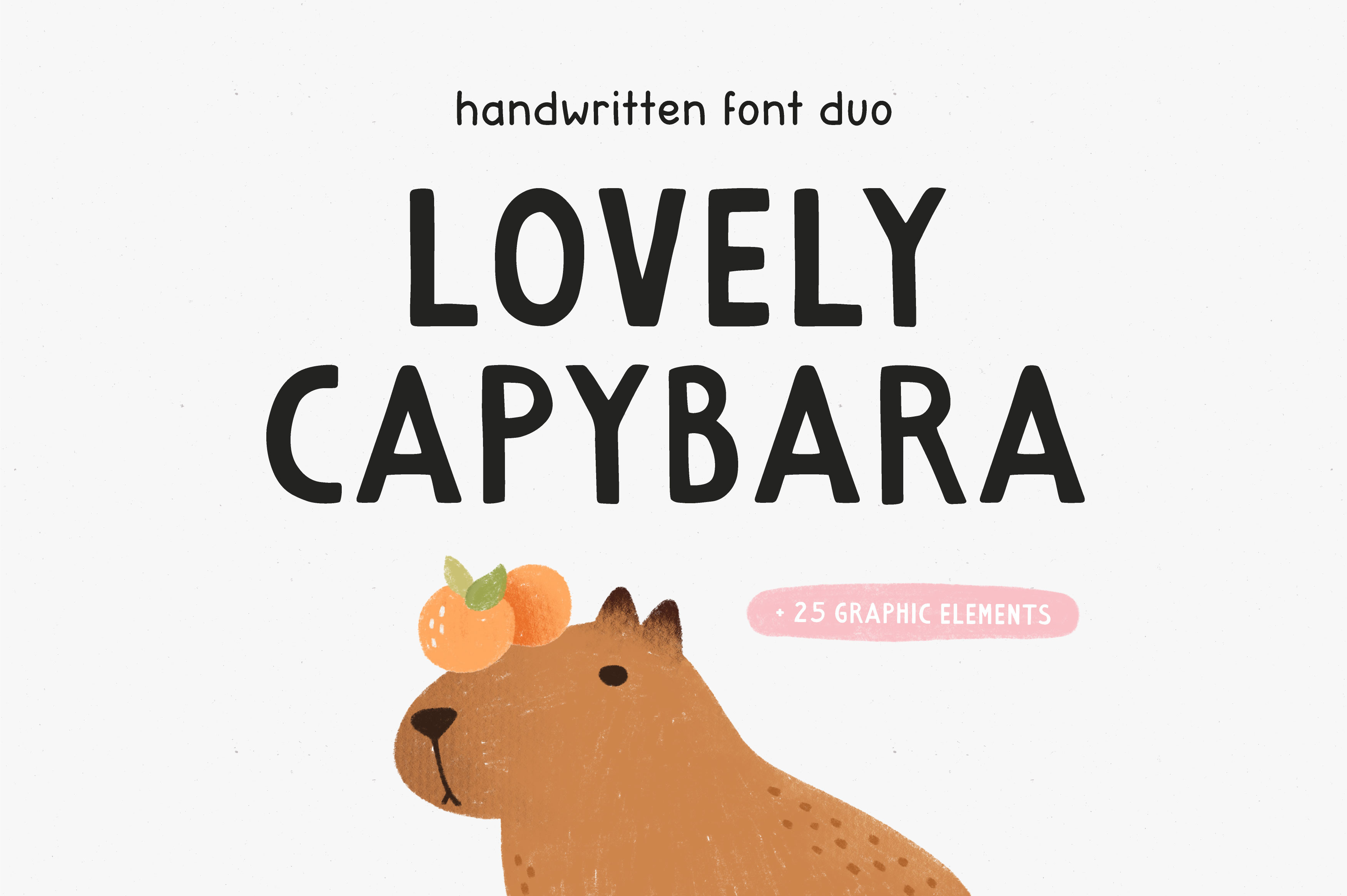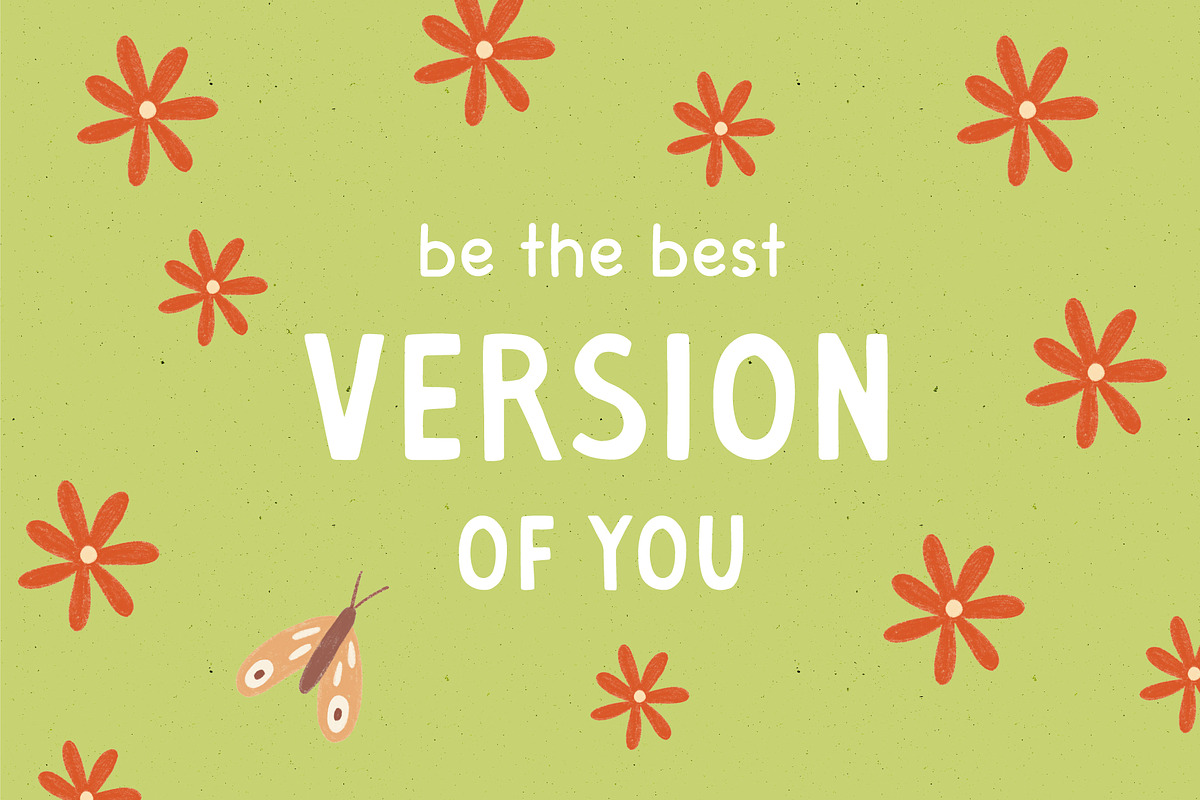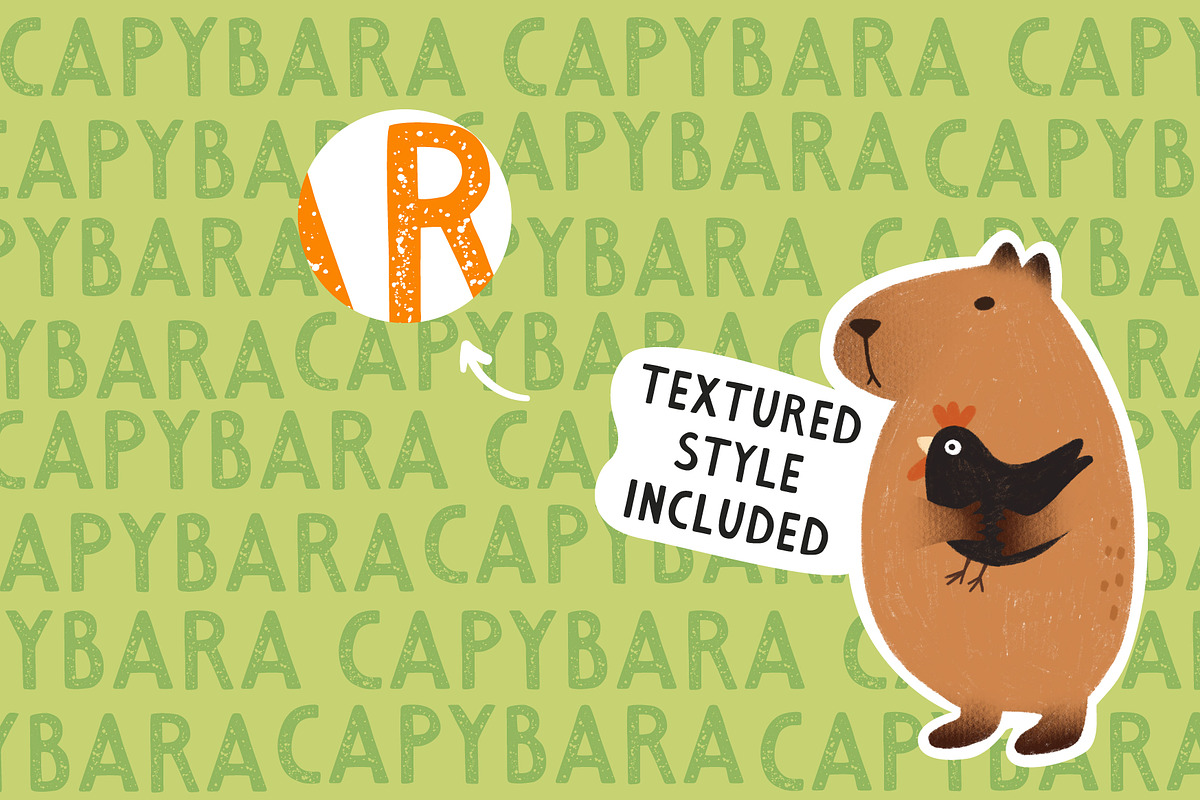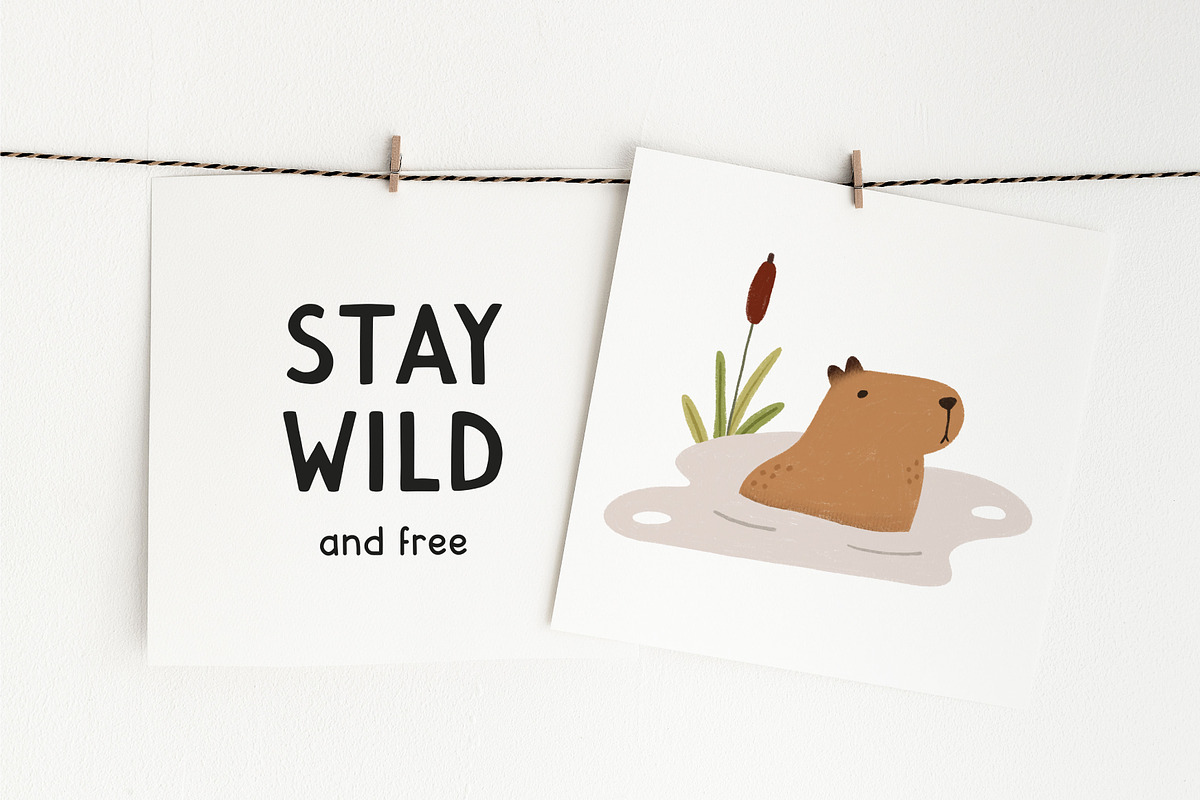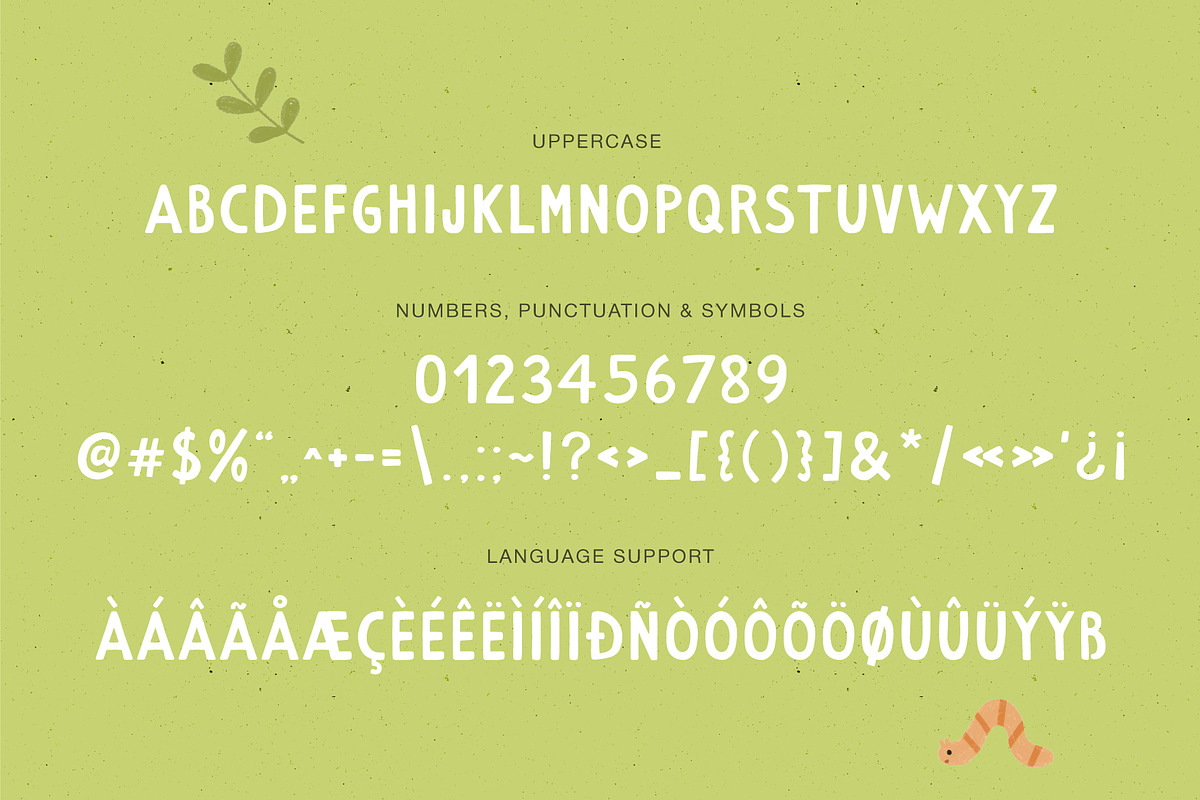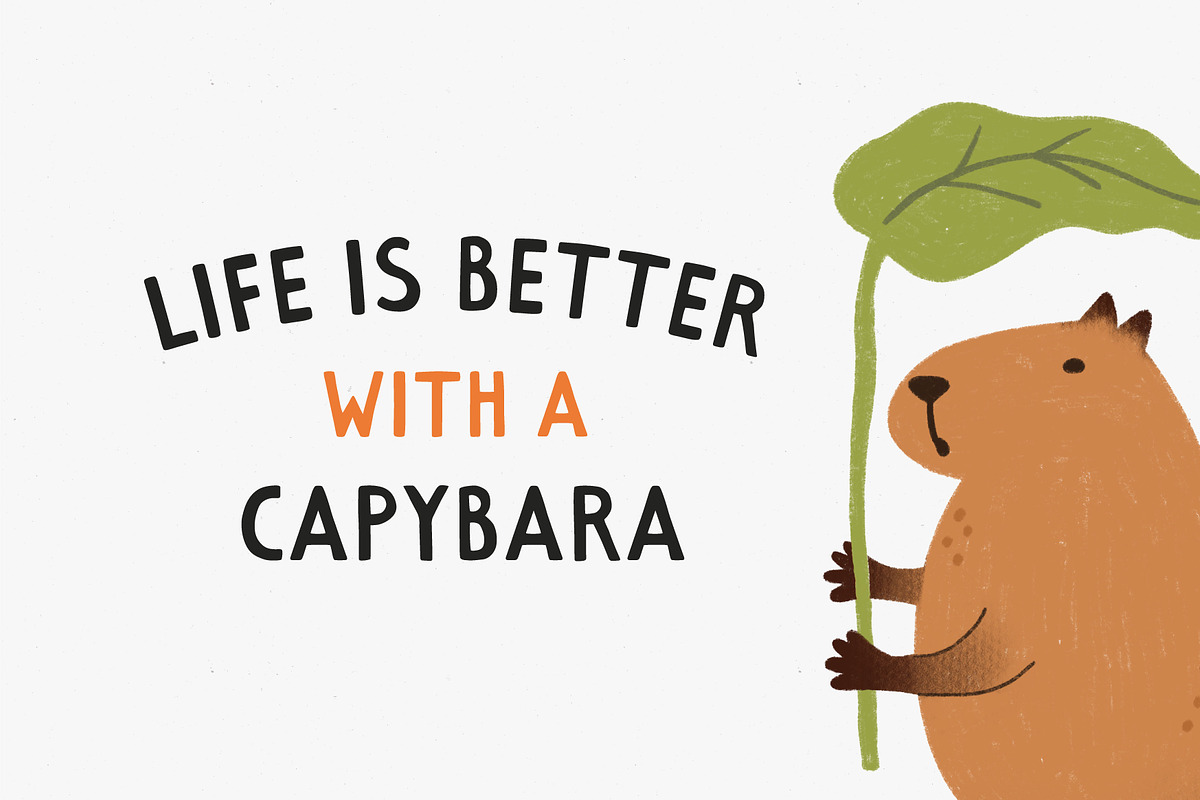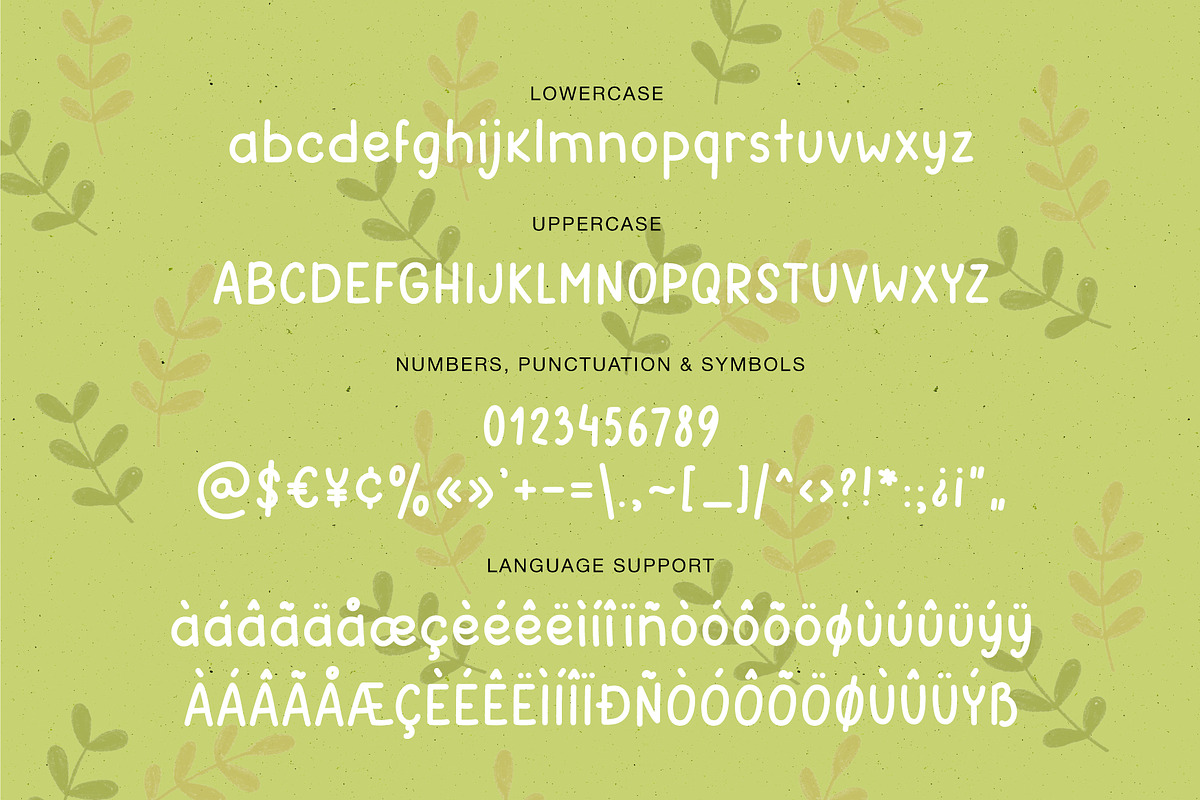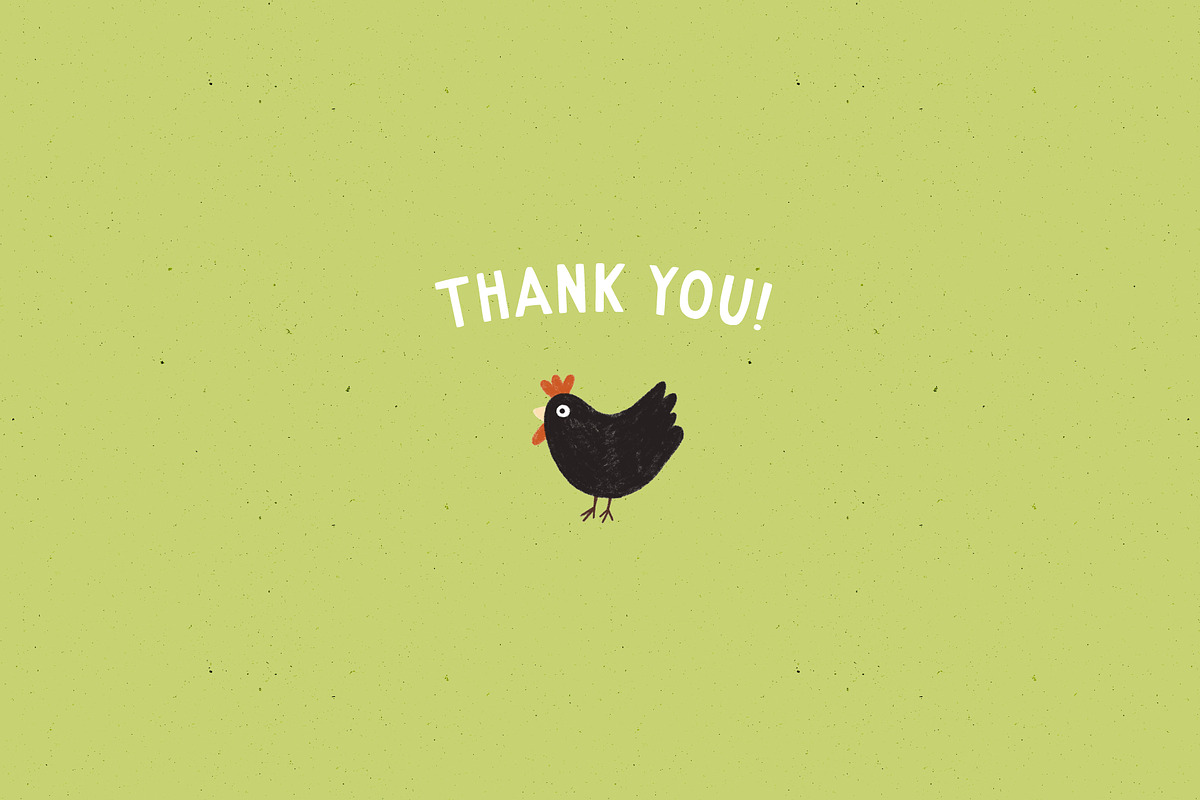
Lovely Capybara | Handwritten font
Say hello to Lovely Capybara - cute hand-lettered font duo with cute hand drawn illustrations. Its hand drawn style provides an imperfect look, great to add a handmade touch to your projects. Use for logos, posters, blog posts, business cards, invitations, journals, clothing and more.